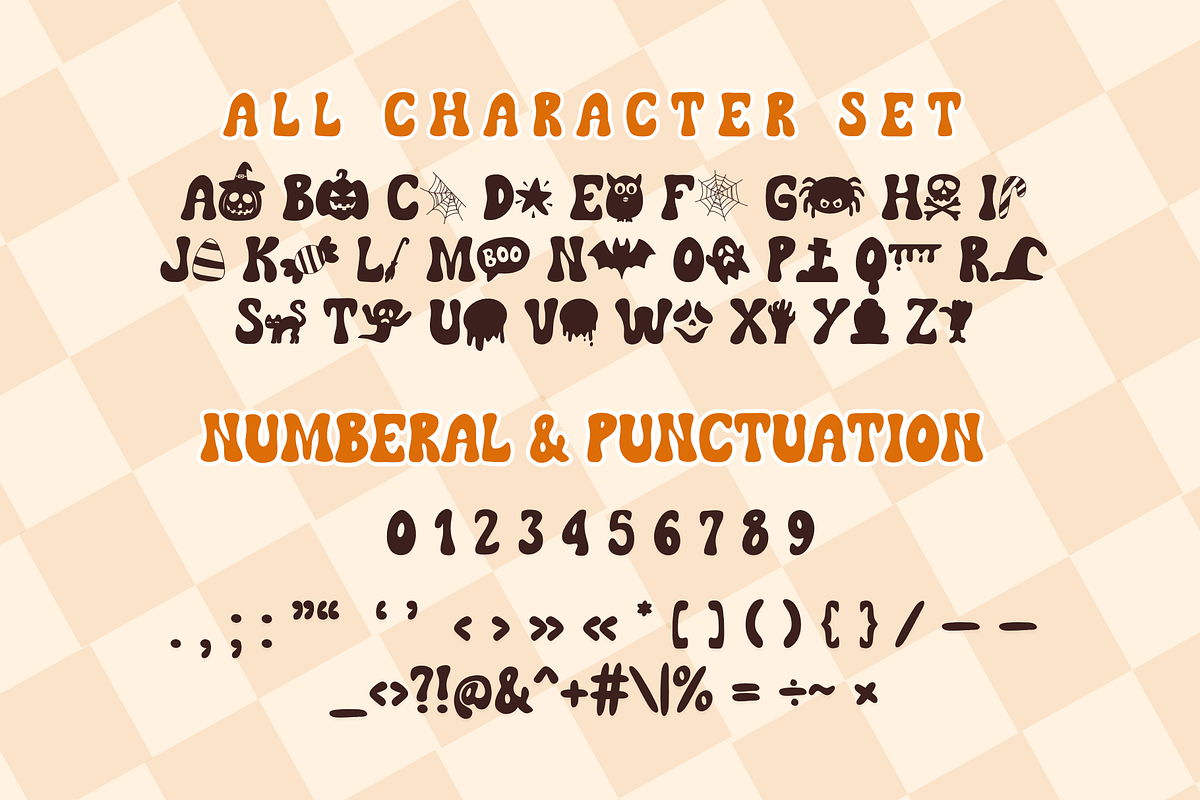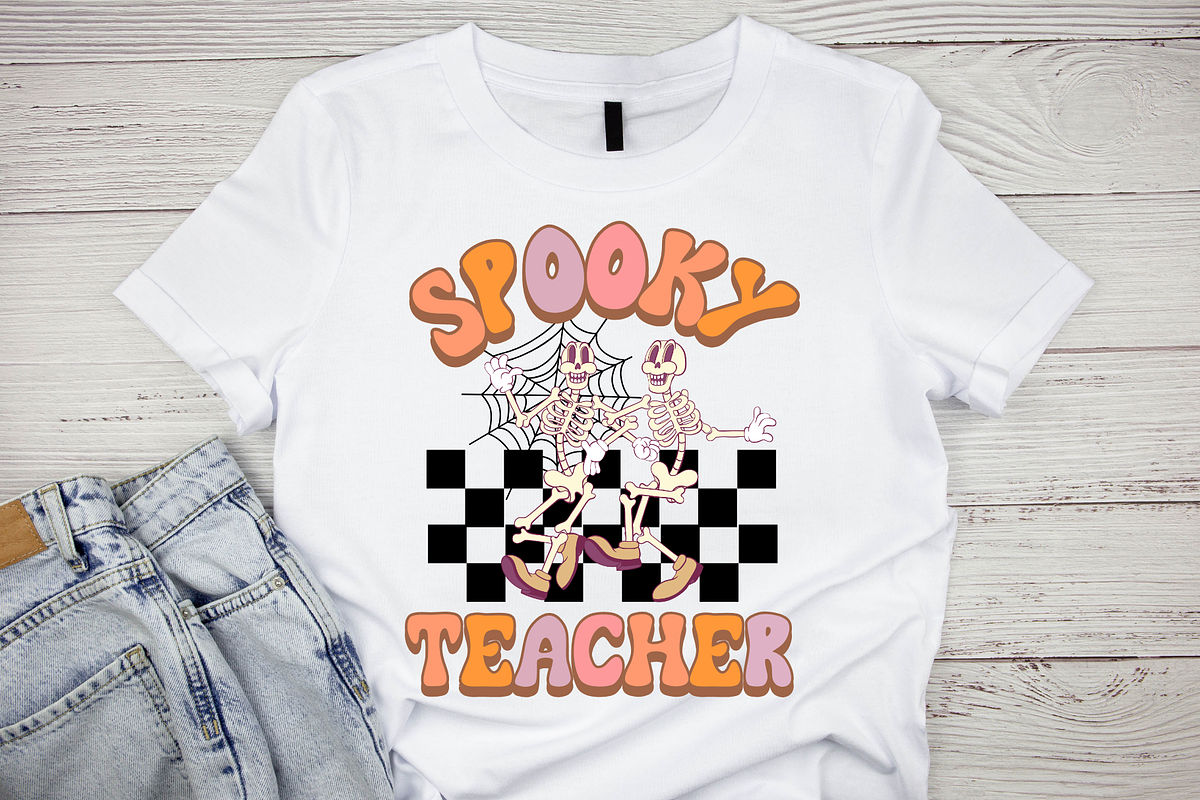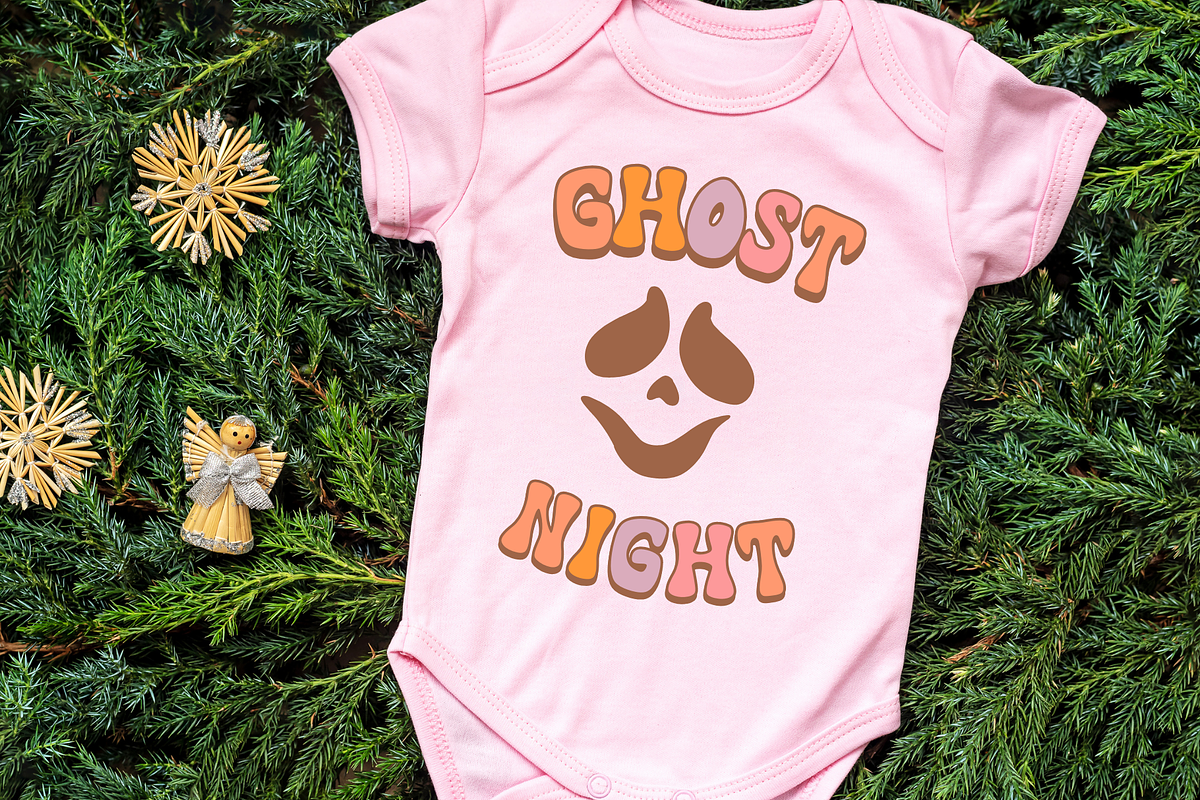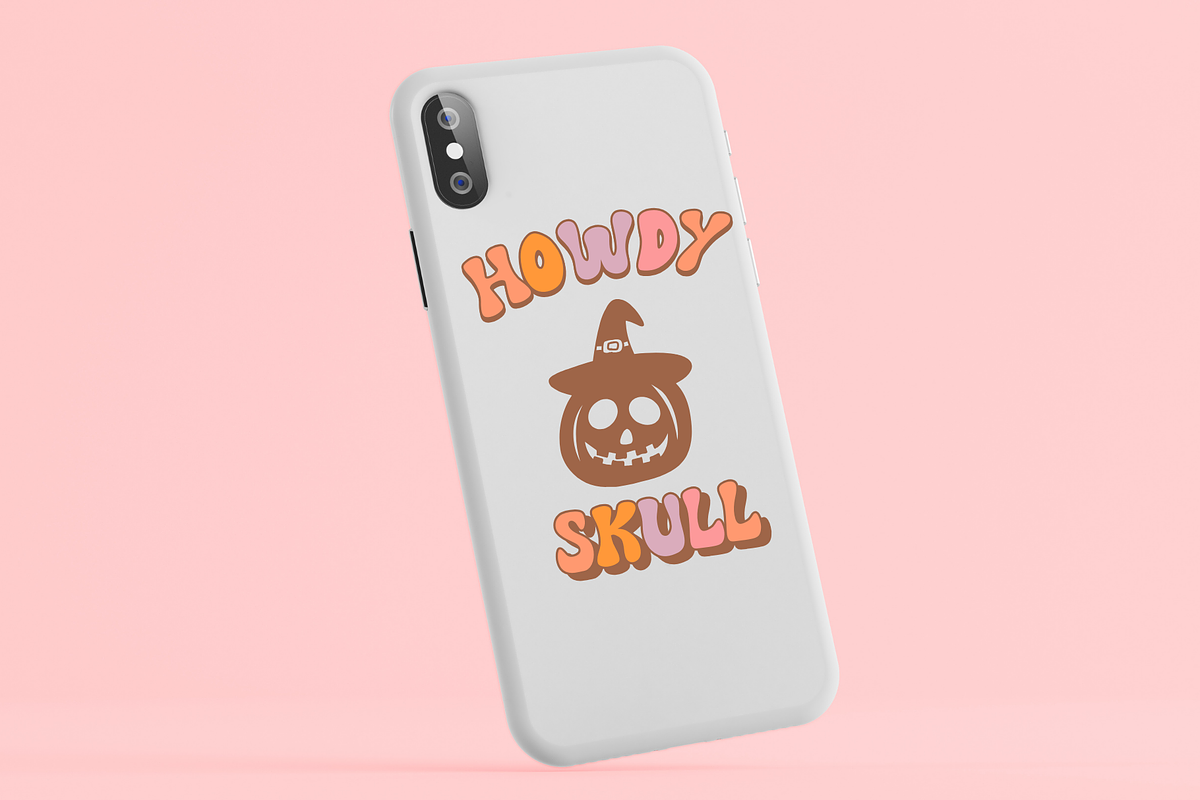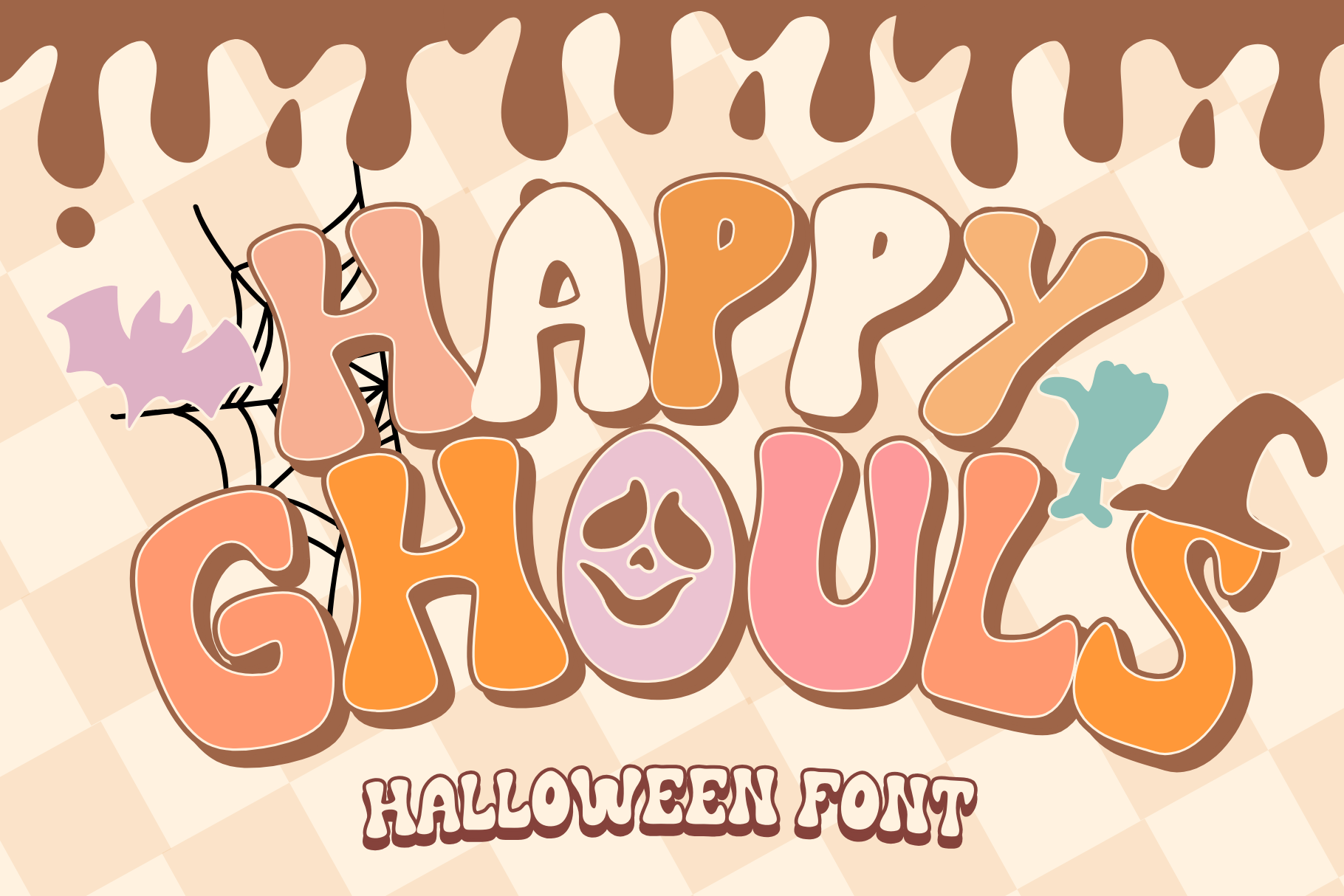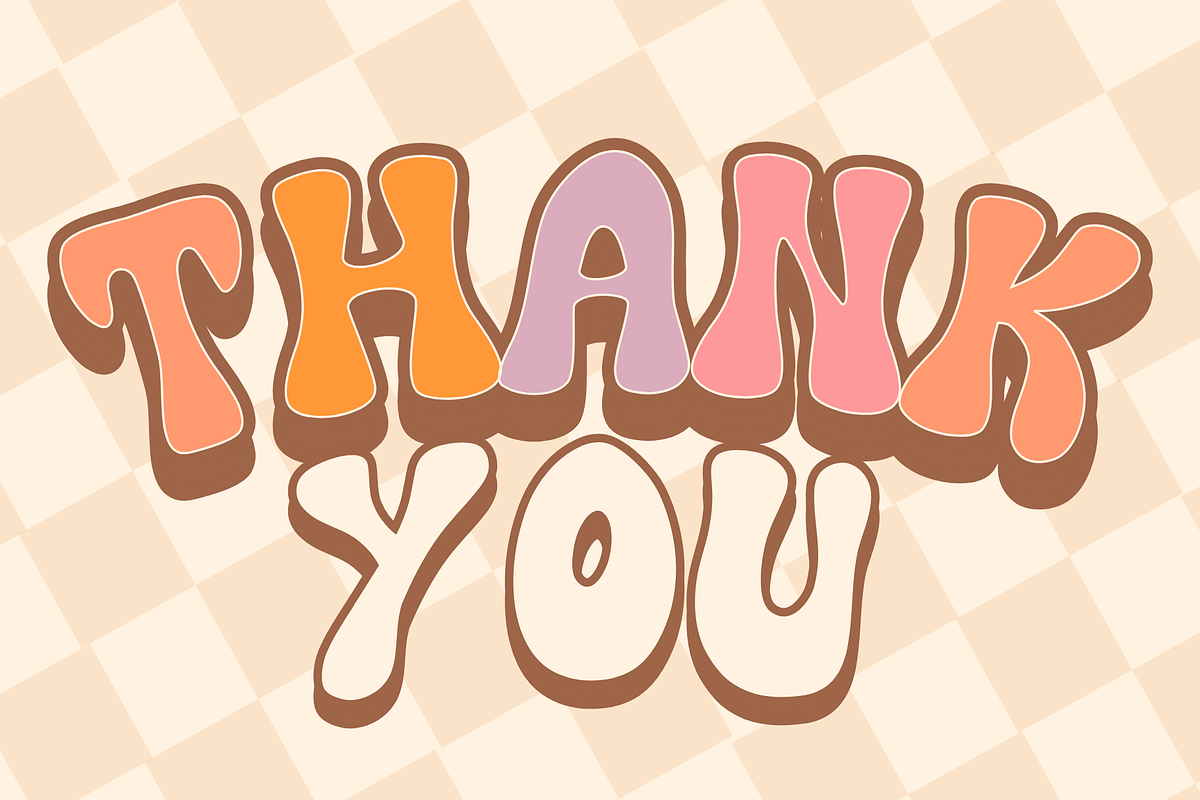
Happy Ghouls is a Halloween font
Happy Ghouls is a retro Halloween decorative font. It embodies playfulness and authenticity and is the perfect choice for all your favorite projects such as blog posts, logos, branding, ads, invitations, greeting cards, planners, photo albums, decorations, and more. Add it to any of your designs, and enjoy the results!